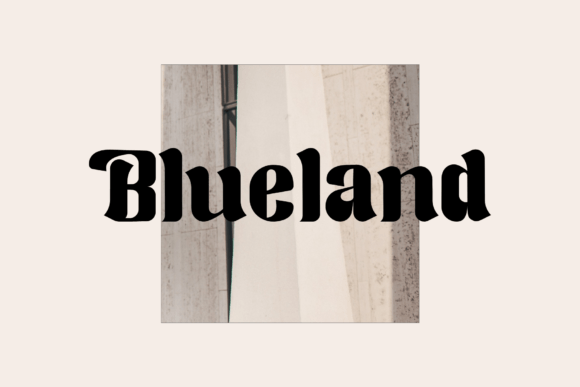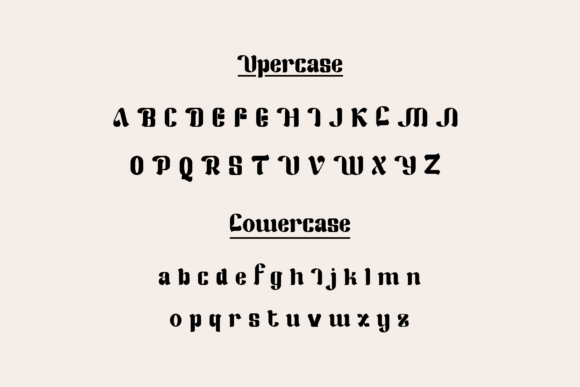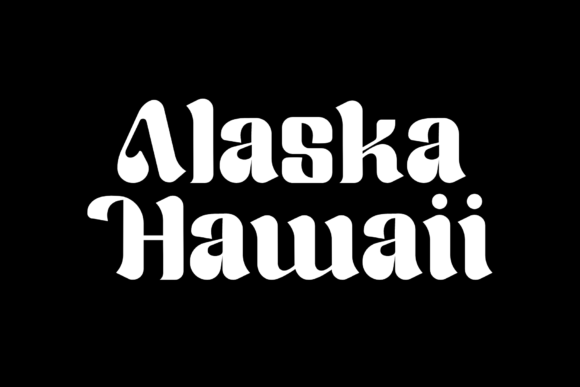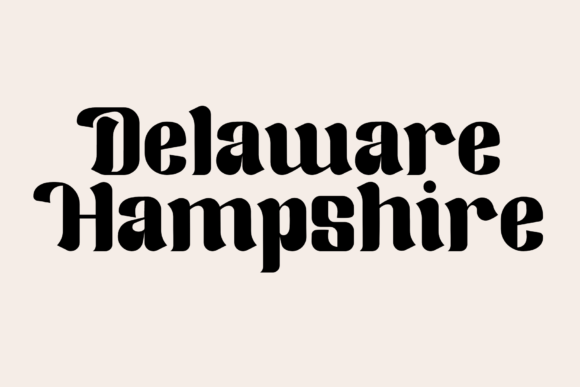
Introduction to Merry Land Font
Merry Land is a typeface full of retro power.
This unique and bold lettering will make your project stand out from the crowd Merry Land is very versatile, fitting a wide variety of projects, from bold magazine imagery to branding, poster design, and much more.
Key Features of Merry Land Font
Why Choose Merry Land Font?
Merry Land Font offers exceptional quality and versatility, making it a valuable addition to your design toolkit. Whether you’re creating for personal projects or commercial use, Merry Land Font delivers professional results.